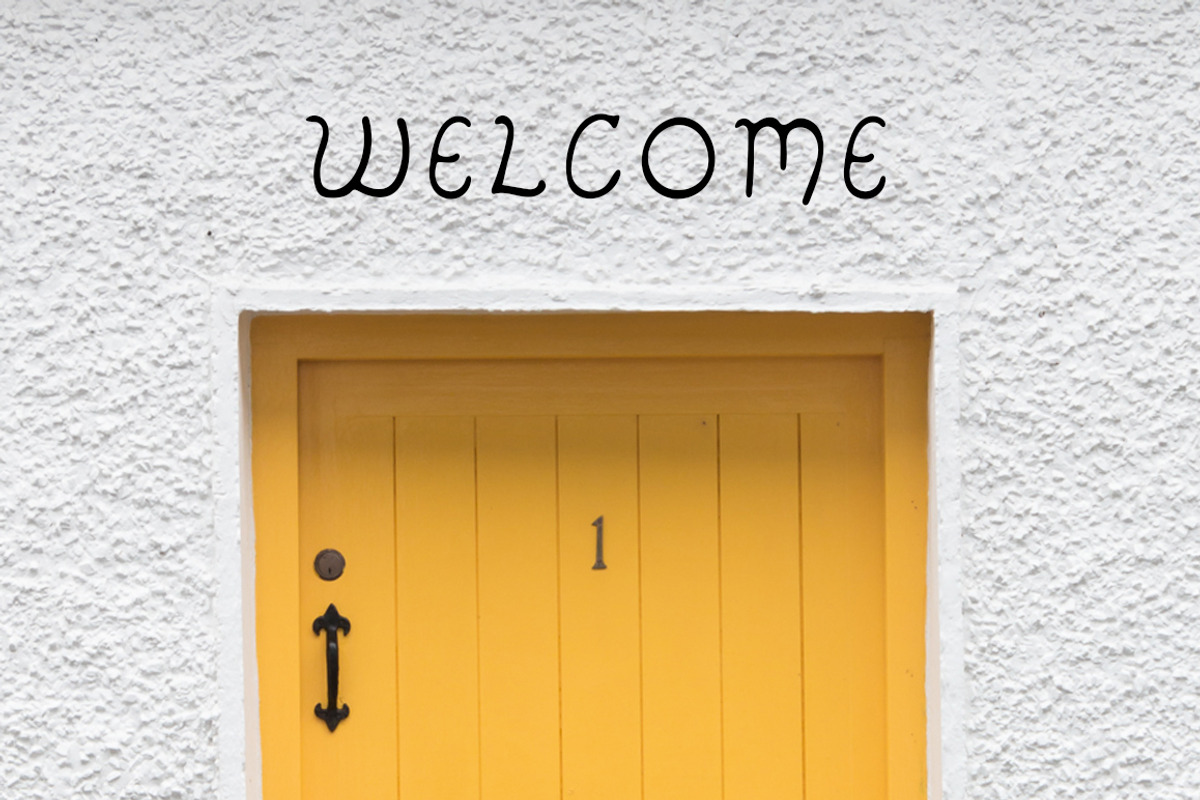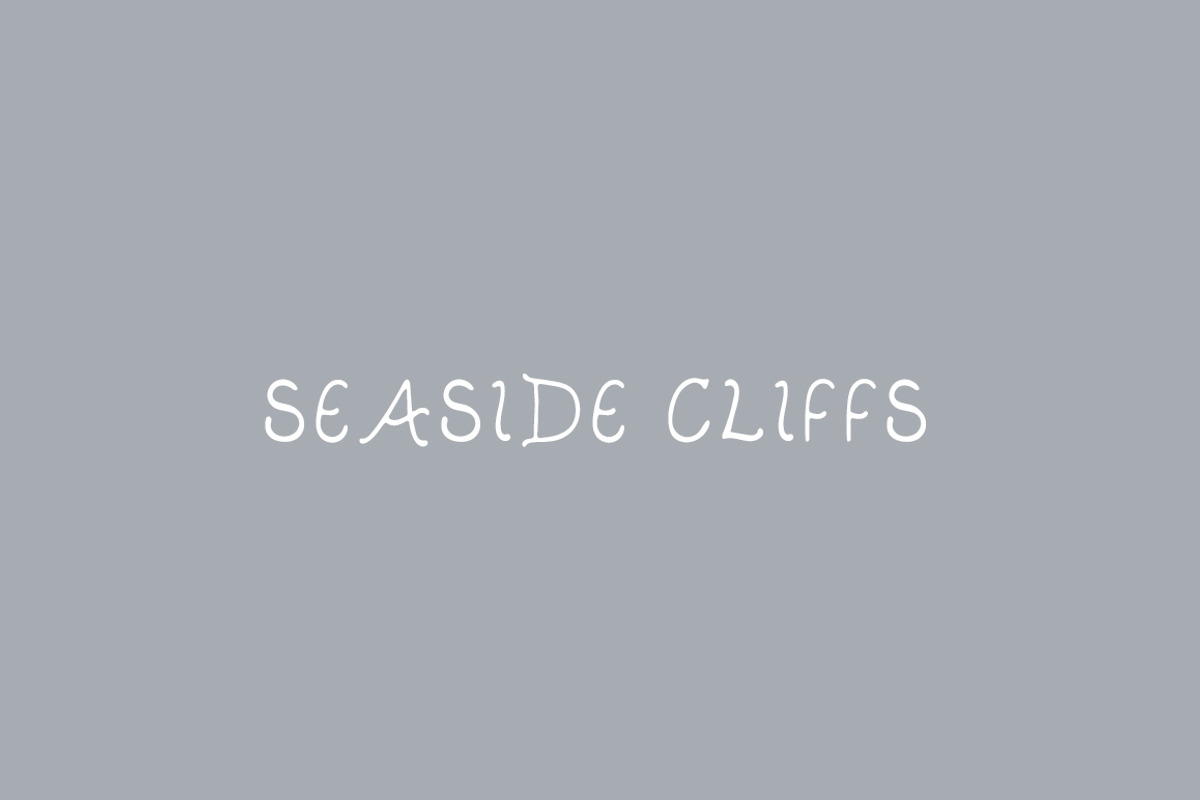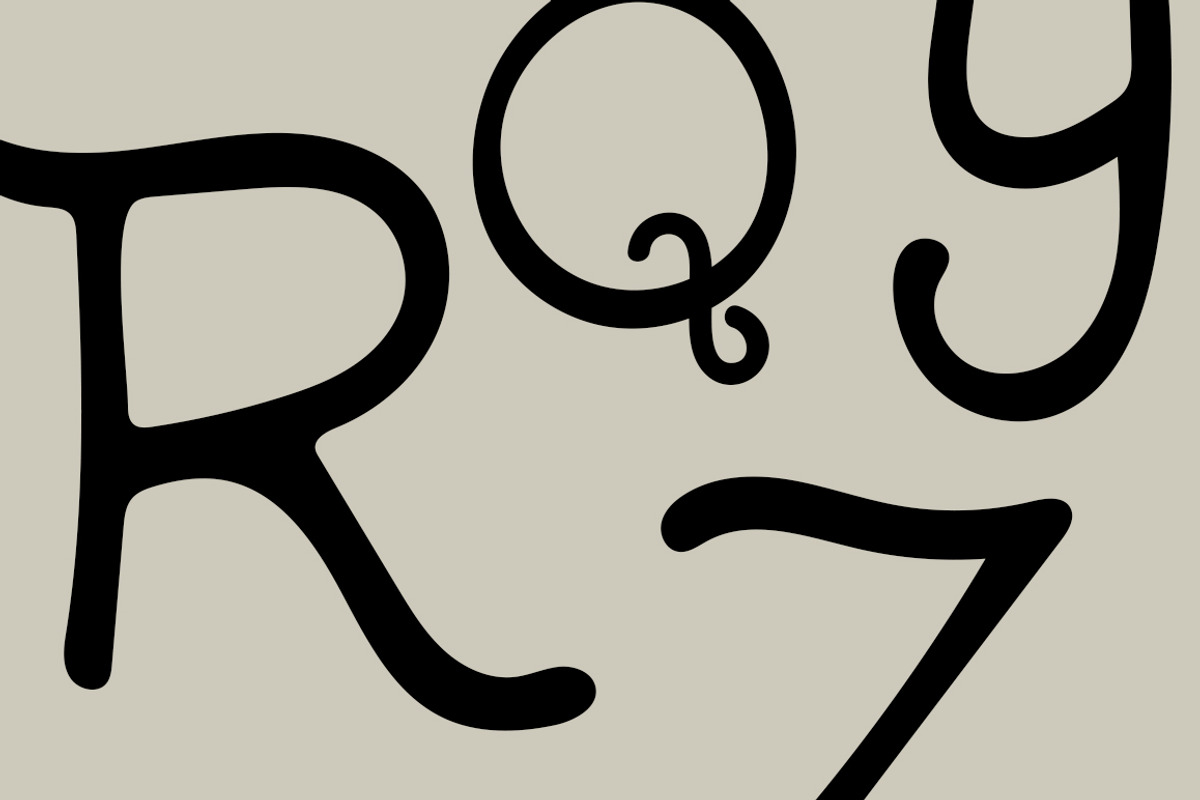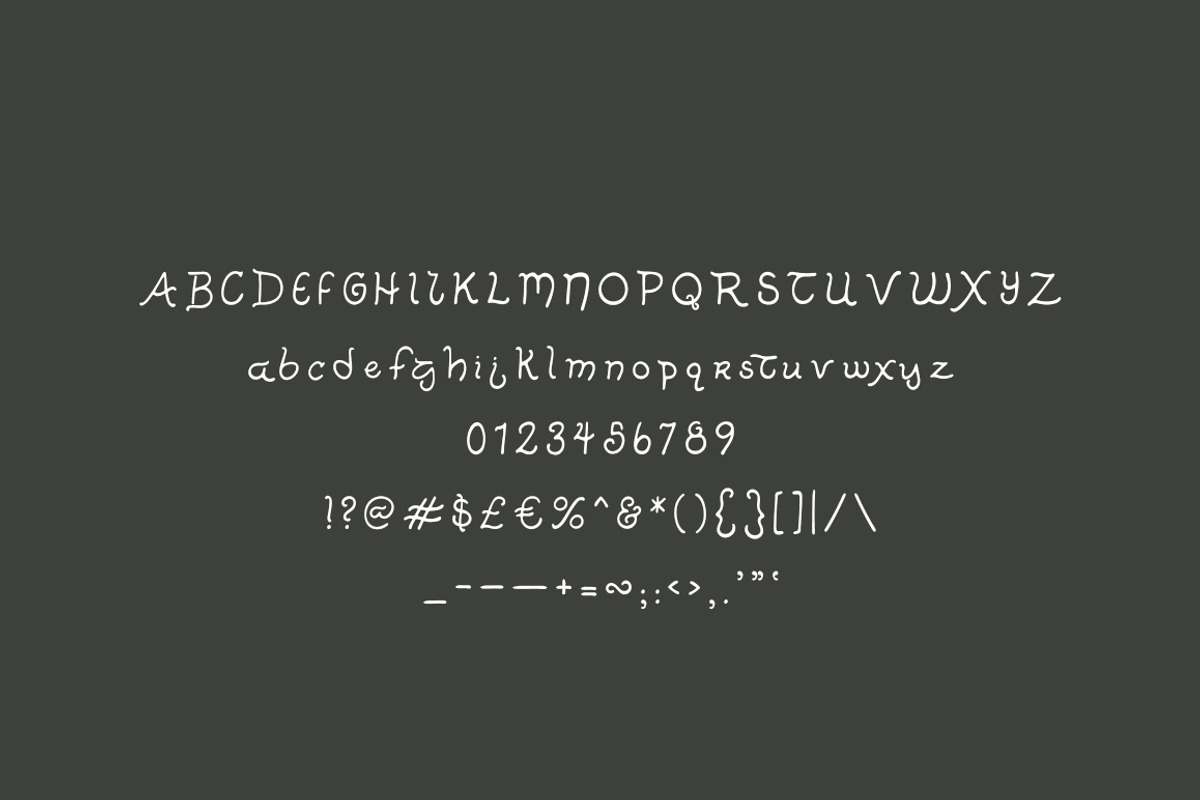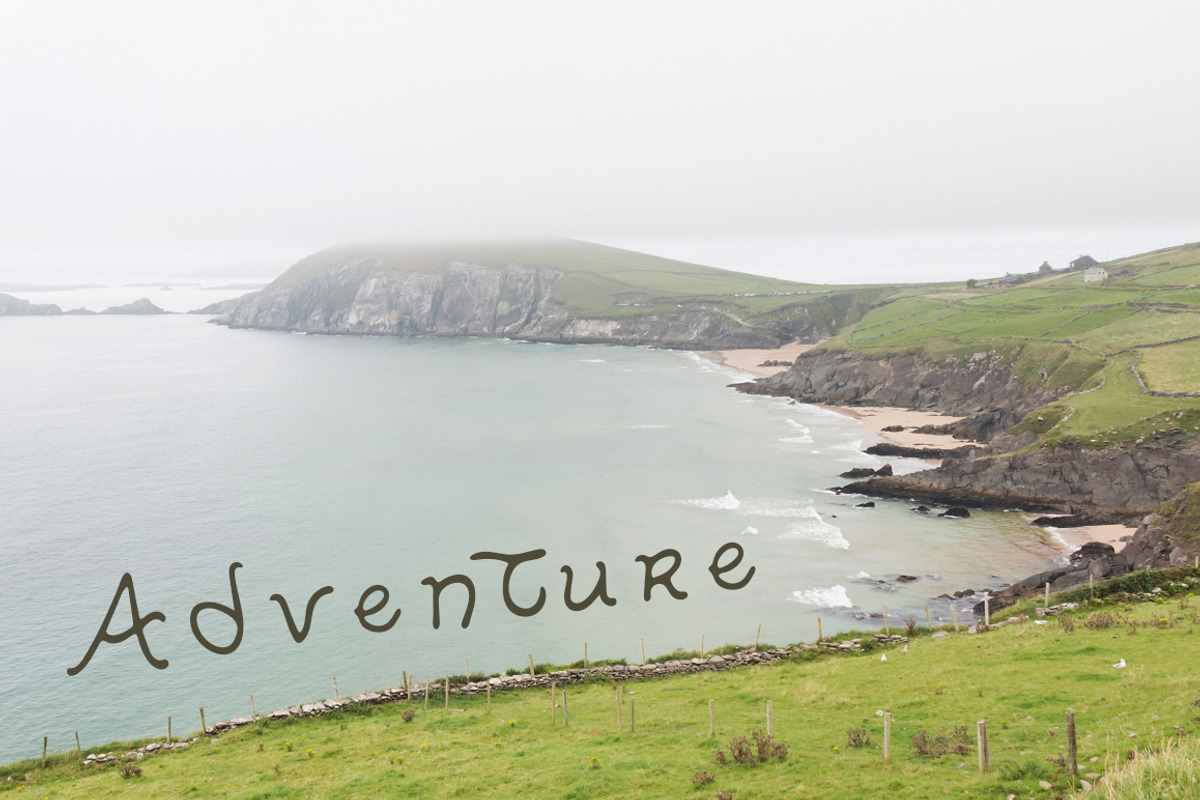
Ireland: A Hand-Lettered Font
Ireland was created after a trip to the Dingle Peninsula. Taking in the country's history and natural landscapes, I was inspired to create lettering that reflected and entwined those two elements. With its organic curves and smooth corners, this font works best as a header font or for smaller bodies of text. It is perfect for projects that need a naturally bold font like blog posts, social graphics, event posters, and perhaps even a logo.
Uppercase alphabet A-Z
Lowercase alphabet a-z
This font was created by hand and then digitized. Enjoy!